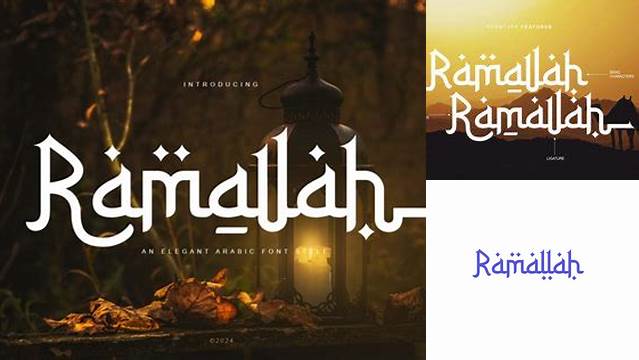
Hey guys! Are you looking for that perfect Ramallah Arabic font style to spice up your designs? You've come to the right place! In this guide, we're going to dive deep into the world of Arabic typography, focusing on the beautiful and unique Ramallah font style. We'll explore what makes it special, where you can find it for free download, and how to best use it in your projects. Whether you're a seasoned designer or just starting, understanding the nuances of Arabic fonts like Ramallah can significantly elevate your work. So, buckle up and let's get started on this exciting typographic journey!
When we talk about Ramallah Arabic font style, we're referring to a typeface that embodies the elegance and calligraphic beauty inherent in Arabic script, but with a modern twist that makes it perfect for contemporary design. This font draws inspiration from the rich cultural heritage of Ramallah, a vibrant city in Palestine, reflecting its history and artistic spirit. Think of the fluid strokes and intricate details that characterize traditional Arabic calligraphy, now reimagined for digital use. What sets Ramallah font apart is its versatility. It’s not just about replicating ancient scripts; it’s about creating a font that feels both authentic and fresh. You'll notice how the letterforms have a rhythmic flow, making text visually appealing and easy to read. This balance is crucial because Arabic script, with its right-to-left directionality and connected letters, requires careful design to ensure legibility. The Ramallah style often incorporates subtle serifs or elegant curves that guide the reader's eye smoothly across the text. It’s designed to be more than just letters; it’s a piece of art. The font carries with it a sense of cultural identity, making it a powerful choice for projects that aim to connect with Arabic-speaking audiences or convey a sense of tradition and heritage. Imagine using this font for branding a cultural center, designing invitations for a Middle Eastern wedding, or crafting compelling headlines for an Arabic news website. The possibilities are vast, and the impact is significant. The beauty of the Ramallah font also lies in its adaptability. While it shines in formal settings, its modern touches mean it can also be used in more casual and creative projects. Think about using it in social media graphics, posters, or even app interfaces. The key is to understand the context and ensure the font's personality aligns with the message you're trying to convey. In the digital age, where visual communication is paramount, having access to a font that speaks volumes is a game-changer. And that’s precisely what the Ramallah Arabic font style offers – a blend of tradition and modernity, making it a valuable asset in any designer's toolkit.
Key Characteristics of the Ramallah Font
To truly appreciate the Ramallah Arabic font style, let's break down its key characteristics. Understanding these elements will not only help you identify the font but also guide you in using it effectively in your designs. First and foremost, the Ramallah font is characterized by its elegant and flowing letterforms. Unlike some blockier or more geometric Arabic fonts, Ramallah emphasizes fluidity, mimicking the graceful strokes of traditional calligraphy. This gives the text a sense of movement and sophistication. Look closely, and you'll notice subtle variations in line thickness, adding depth and visual interest to each character. Another defining feature is the balance between traditional and modern elements. While the font draws heavily from classical Arabic scripts, it incorporates contemporary design principles to ensure it looks fresh and relevant. This means you'll see a harmonious blend of sharp angles and gentle curves, creating a typeface that feels both timeless and current. The legibility of the Ramallah font is also a crucial characteristic. Arabic script, with its connected letters and intricate details, can sometimes be challenging to read, especially in smaller sizes. However, the Ramallah font is designed with clarity in mind. The spacing between letters and the overall letterforms are carefully crafted to ensure that the text remains readable even in dense blocks of text. This makes it a practical choice for a wide range of applications, from headlines to body text. Furthermore, the Ramallah font often includes a variety of weights and styles, such as regular, bold, and italic. This versatility allows designers to create visual hierarchy and add emphasis within their designs. For example, you might use the bold version for headlines and the regular version for body text, creating a clear distinction between different sections of your content. The cultural significance of the font cannot be overlooked. As the name suggests, the Ramallah font carries a connection to the city of Ramallah in Palestine, and by extension, to the broader Arab culture and heritage. Using this font can add a layer of authenticity and cultural resonance to your projects, making it an excellent choice for designs that aim to connect with Arabic-speaking audiences or convey a sense of tradition. Finally, the aesthetic appeal of the Ramallah font lies in its ability to evoke emotion. The graceful curves and elegant strokes create a sense of beauty and sophistication, making it a perfect choice for designs that aim to convey a sense of luxury, elegance, or cultural richness. Whether you're designing a logo, a website, or a printed publication, the Ramallah font can help you create a visual identity that is both distinctive and impactful.
Tips for Using Ramallah Font in Your Designs
So, you've got your hands on the Ramallah font, awesome! Now, let's talk about how to use it effectively in your designs. Just having a beautiful font isn't enough; you need to know how to apply it in a way that enhances your message and creates a visually appealing composition. First off, consider the context of your project. The Ramallah font, with its elegant and slightly traditional feel, is particularly well-suited for designs that aim to convey a sense of sophistication, cultural richness, or authenticity. Think about using it for branding projects related to Middle Eastern cuisine, cultural events, or luxury products. It can also be a great choice for invitations, greeting cards, and other formal communications. However, if your project has a very modern or edgy vibe, the Ramallah font might not be the best fit. It's all about matching the font's personality to the overall tone and message of your design. When it comes to typography, less is often more. Avoid overcrowding your design with too many different fonts. Ideally, stick to a maximum of two or three typefaces. Using the Ramallah font as a headline font and pairing it with a clean, legible sans-serif font for body text can create a harmonious and balanced look. For example, you might pair it with a font like Open Sans or Lato. Pay close attention to the size and spacing of your text. The Ramallah font, with its intricate letterforms, can sometimes appear smaller than other fonts of the same point size. You may need to increase the font size slightly to ensure it's readable. Also, adjust the letter spacing (tracking) and line spacing (leading) to create a comfortable reading experience. Too little spacing can make the text look cramped, while too much spacing can make it feel disjointed. Kerning, which is the spacing between individual letter pairs, is also crucial, especially with Arabic fonts where letters are connected. Ensure that the kerning is balanced to maintain the font's fluidity and legibility. Color plays a significant role in typography. When using the Ramallah font, consider the background color and the overall color palette of your design. A high-contrast color combination, such as dark text on a light background, will ensure readability. You can also use color to highlight certain words or phrases and create visual interest. Don't be afraid to experiment with different font weights and styles. The Ramallah font often comes in regular, bold, and italic versions. Using these variations strategically can help you create visual hierarchy and emphasize important information. For example, use the bold version for headlines and the regular version for body text. Finally, always test your design on different devices and in different formats. What looks great on your computer screen might not look as good on a mobile device or when printed. Preview your design in various sizes and resolutions to ensure that the text remains legible and the overall composition is balanced. By following these tips, you can harness the beauty and elegance of the Ramallah font and create designs that truly stand out.
Alright, guys, we've reached the end of our deep dive into the Ramallah Arabic font style! We've explored what makes this font so special, where you can find it for free download, and how to use it effectively in your designs. Hopefully, you're now feeling confident and inspired to incorporate this beautiful typeface into your next project. Remember, the Ramallah font is more than just a set of letters; it's a piece of cultural heritage that can add depth and authenticity to your work. Whether you're designing a website, creating marketing materials, or crafting a personal invitation, this font can help you connect with your audience on a deeper level. The key takeaways are to always download fonts from reputable sources, pay attention to licensing terms, and experiment with different ways to use the font in your designs. Don't be afraid to try new things and push the boundaries of your creativity. Typography is an art form, and the Ramallah font is a powerful tool that can help you express your unique vision. So go ahead, download the font, and start creating something amazing! And remember, the world of Arabic typography is vast and fascinating. There are countless other fonts and styles to explore, each with its own unique personality and history. Keep learning, keep experimenting, and most importantly, keep having fun with design! Thanks for joining me on this journey, and I can't wait to see what you create with the Ramallah font. Happy designing!